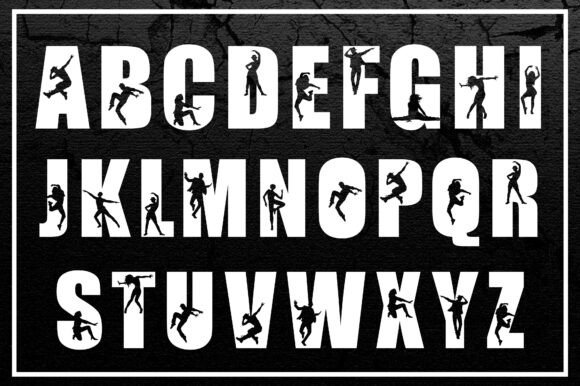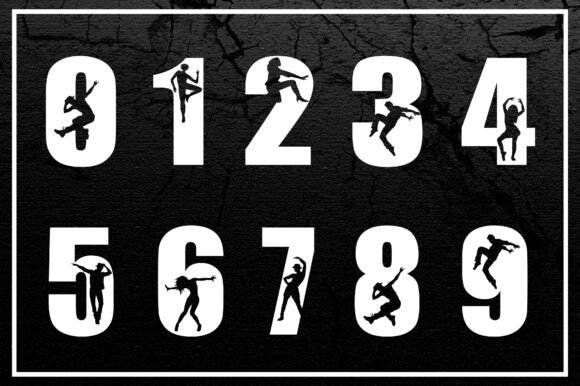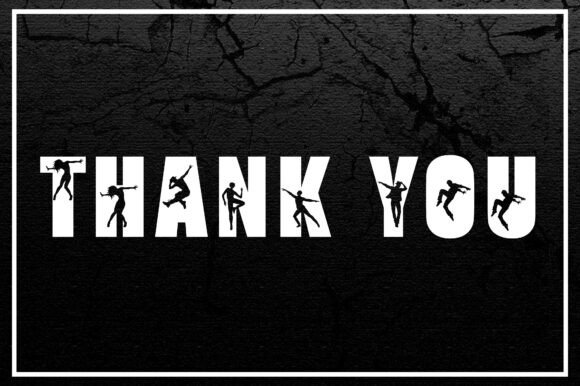
Dance Font: Elevate Your Designs with a Cool Decorative Display Font
Dance is a vibrant and energetic decorative display font that can add a touch of excitement to your creative projects. With its unique and playful style, this font is perfect for designers and crafters looking to make a statement. In this article, we’ll explore the features and benefits of the Dance font, and show you how to incorporate it into your designs to achieve amazing results.
What is Dance Font?
Dance font is a decorative display font designed to evoke the spirit of movement and energy. Its bold and dynamic style makes it perfect for headlines, titles, and other design elements that need to grab attention. The font features elegant and fluid lines, with a touch of playfulness that sets it apart from more traditional fonts.
Key Features of Dance Font
• Unique and Playful Style: Dance font boasts a one-of-a-kind design that’s sure to make your projects stand out.
• Bold and Dynamic: The font’s bold lines and dynamic curves make it perfect for creating eye-catching headlines and titles.
• Elegant and Fluid Lines: The font’s elegant lines and fluid curves give it a sense of movement and energy.
• Multilingual Support: Dance font supports multiple languages, making it a great choice for designers working on international projects.
Benefits of Using Dance Font
So why choose Dance font for your designs? Here are just a few benefits of using this amazing font:
• Adds Visual Interest: The unique and playful style of Dance font adds visual interest to your designs, making them more engaging and attention-grabbing.
• Perfect for Creative Projects: Dance font is ideal for creative projects such as posters, flyers, brochures, and other marketing materials.
• Easy to Read: Despite its bold and playful style, Dance font is easy to read, making it perfect for use in headlines and titles.
• Customizable: Dance font can be customized to fit your design needs, allowing you to adjust the size, color, and style to suit your project.
How to Use Dance Font in Your Designs
Using Dance font in your designs is easy! Here are a few tips to get you started:
• Pair with Other Fonts: Pair Dance font with other fonts to create a unique and visually appealing combination.
• Use for Headlines and Titles: Use Dance font for headlines and titles to add a touch of excitement and energy to your designs.
• Experiment with Colors: Experiment with different colors to find the perfect combination that matches your brand or design style.
• Adjust Font Size: Adjust the font size to create visual interest and hierarchy in your designs.
Dance font is perfect for designers and crafters looking to add a touch of creativity to their projects. Here are a few ideas to get you started:
• Party Invitations: Use Dance font to create eye-catching party invitations that set the tone for a fun and exciting event.
• Fashion Designs: Use Dance font to add a touch of glamour and sophistication to your fashion designs.
• Posters and Flyers: Use Dance font to create bold and attention-grabbing posters and flyers that promote your event or product.
• Social Media Graphics: Use Dance font to create engaging social media graphics that stand out in crowded feeds.
Font Name Dance Font
Author AvocadoSVG
Dance font is a cool decorative display font that can add a touch of excitement and energy to your creative projects. With its unique and playful style, bold and dynamic lines, and elegant and fluid curves, this font is perfect for designers and crafters looking to make a statement. Whether you’re working on a party invitation, fashion design, poster, or social media graphic, Dance font is sure to elevate your designs and help you achieve amazing results.